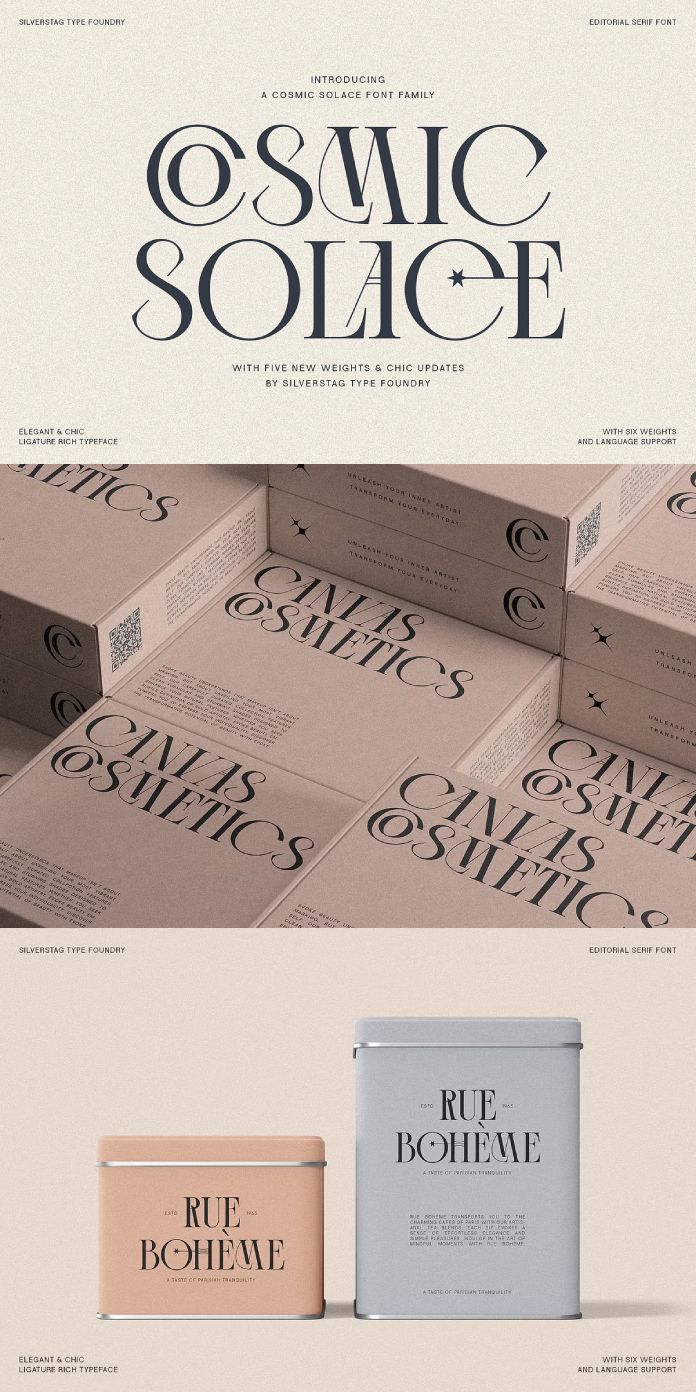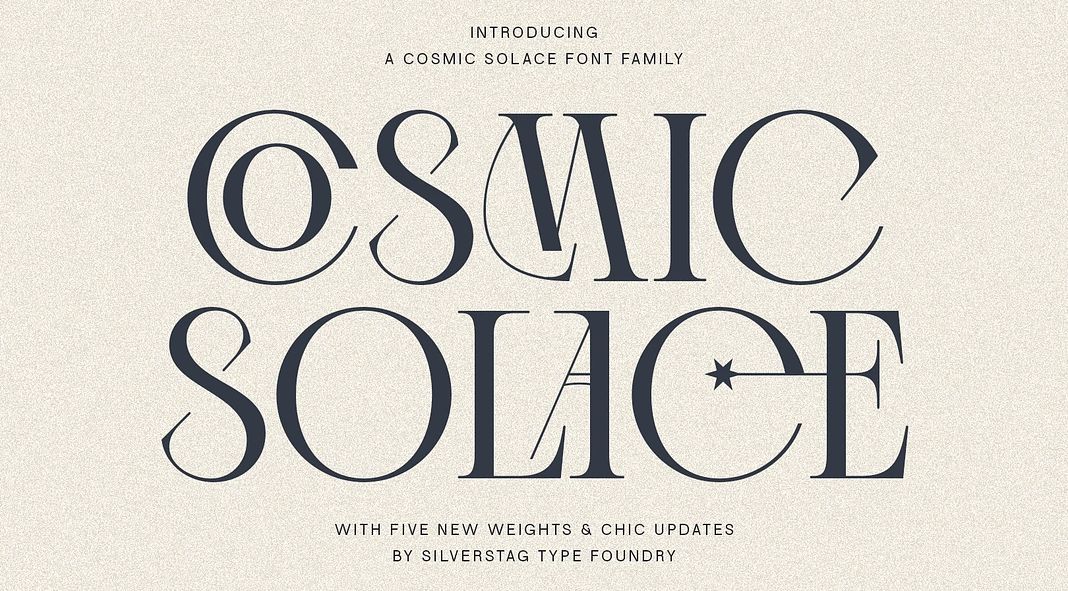
The Font Family That Takes Design to New Heights: Cosmic Solace
Designers, rejoice! The wait is over. SilverStag Type Foundry has unveiled the highly anticipated expansion of their beloved Cosmic Solace font family. Prepare to be dazzled by a spectrum of elegance with this powerful upgrade.
More Than Just a Pretty Face: A Font Family For All Occasions
Previously a solo act, Cosmic Solace now boasts a complete family of six weights. This expanded range, from the airy “Regular” to the commanding “Black,” empowers you to tackle any design project with confidence. But that’s not all! SilverStag has meticulously refined stroke contrast and legibility, ensuring Cosmic Solace shines in every application, from website headers to wedding invitations. Subtle improvements throughout the font family guarantee a seamless design experience.
Channel Your Inner Parisian with Effortless Sophistication
Remember that first glimpse of the Eiffel Tower? The way its intricate ironwork dances against the Parisian sky? Cosmic Solace captures that same essence of timeless elegance. This font family is more than just letters on a page; it’s an homage to enduring charm.
Where Cosmic Solace Family Takes Center Stage
- Effortless Branding: Craft logos, packaging, and marketing materials that exude sophistication.
- Editorial Excellence: Elevate your magazine layouts, website headers, and other editorial projects with a touch of luxury.
- Enthralling Invitations: Design wedding invitations, event announcements, and personal correspondence that leave a lasting impression.
Cosmic Solace Font Family: Your Design Powerhouse
With its expanded weight range, over 130 chic ligatures for effortless flow, and global language support for over 90 languages, Cosmic Solace Family is the design powerhouse you’ve been waiting for. It’s time to unleash your creativity and conquer any design challenge with grace and power. Download Cosmic Solace Family today and experience the full spectrum of elegance!